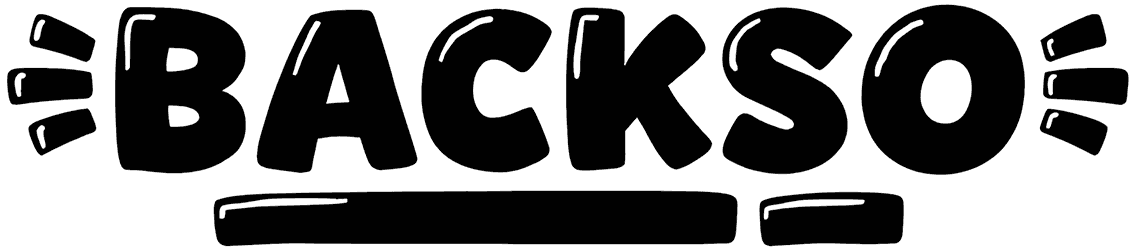
c Cute Bubble Font
C Cute Bubble Font
c Cute Bubble is an extremely flexible display font that can be included in a wide range of editorial projects such as magazines, stickers, illustrations, or blog posts. Use this magical masterpiece to boost the visibility and efficiency of your work by adding a sense of jauntiness, smudginess, or disorder to it.